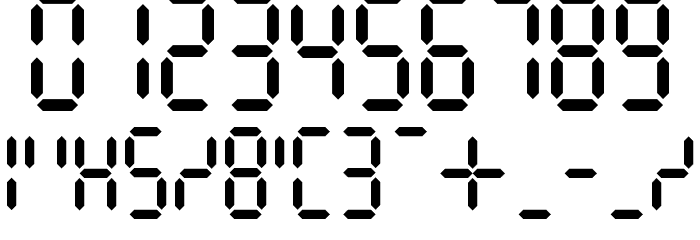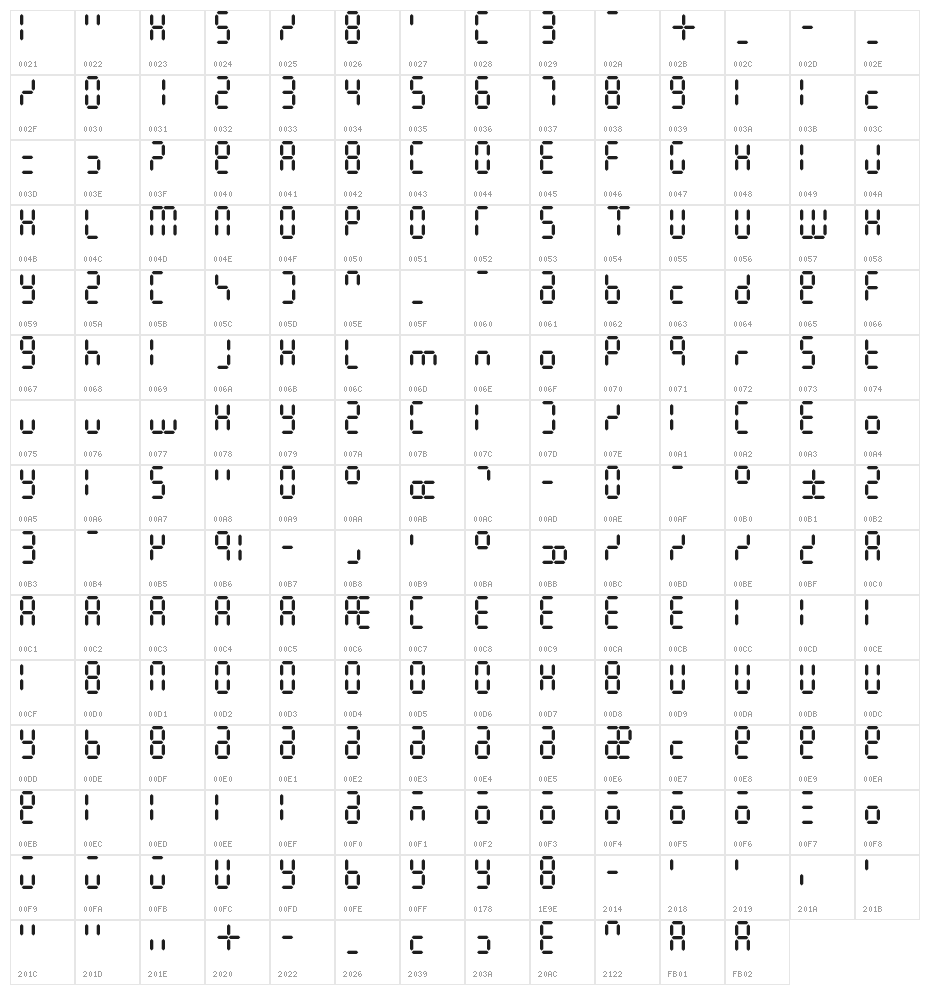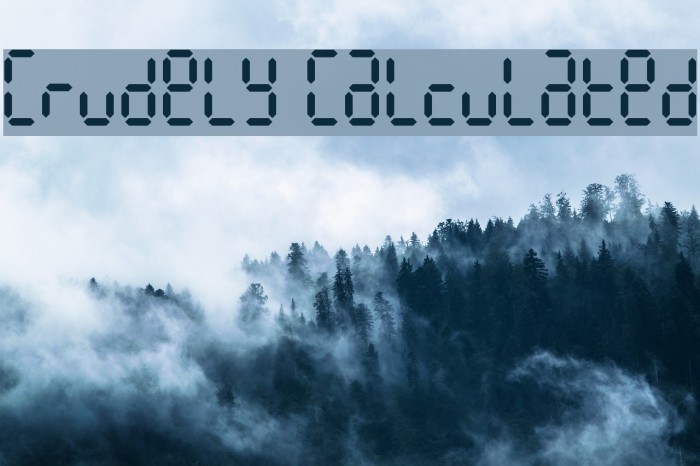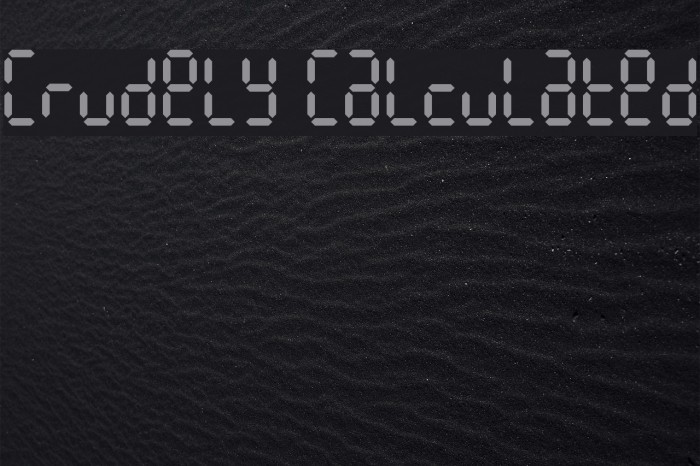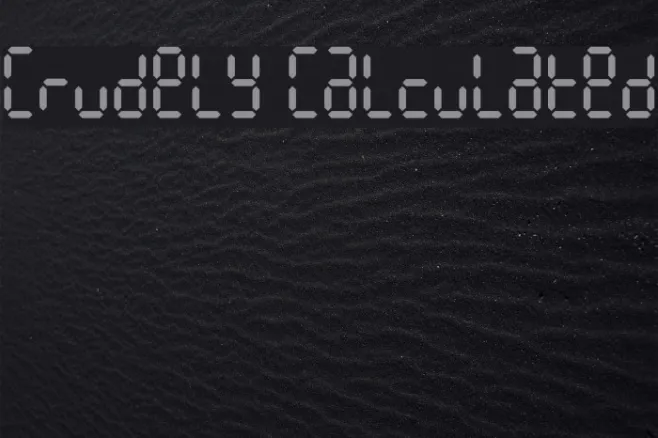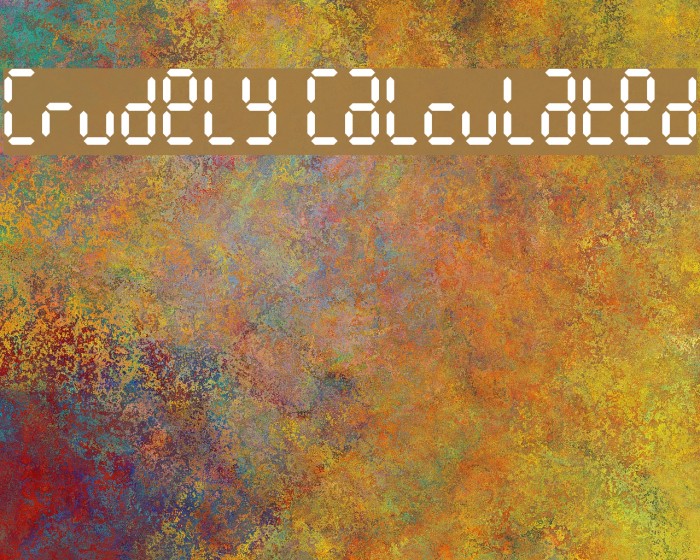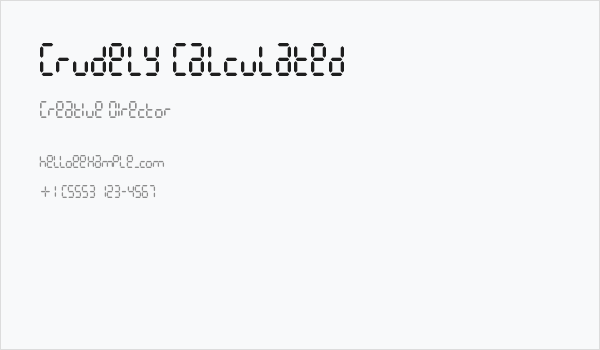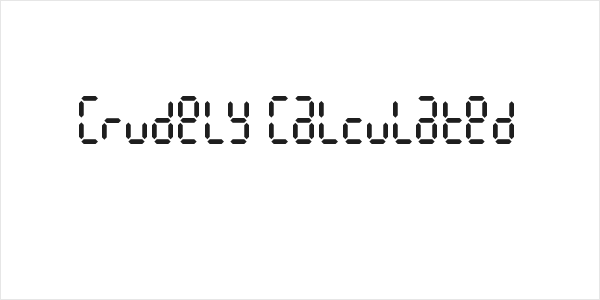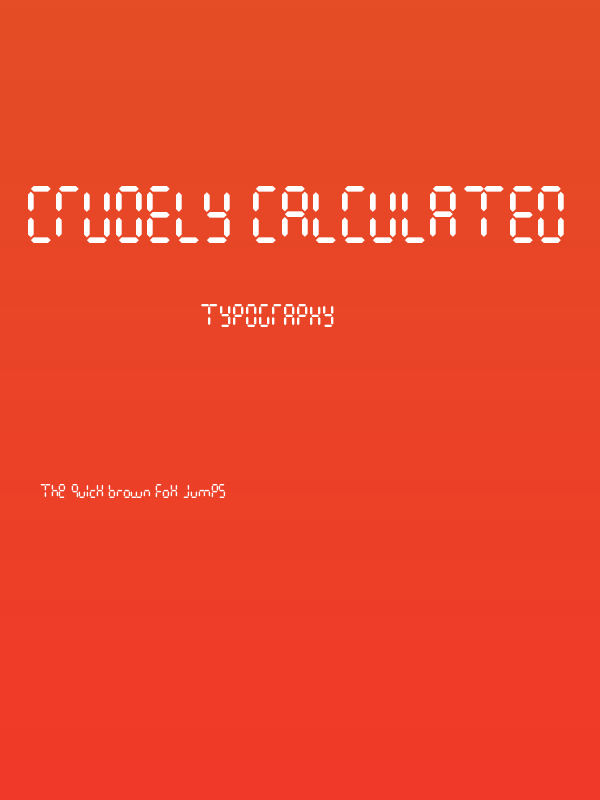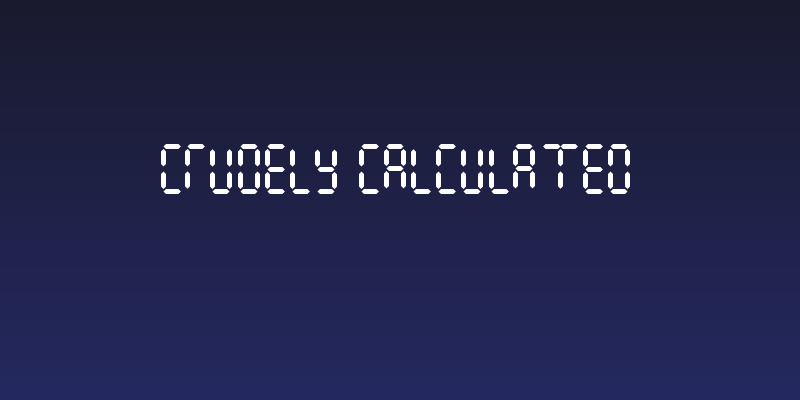
Crudely Calculated Font
This font is reminiscent of digital displays, featuring a segmented style that mimics the appearance of LED or LCD screens. Each character is composed of distinct, angular segments that form a cohesive and recognizable shape. The uppercase and lowercase letters maintain a consistent width, giving the font a monospaced appearance. Numbers and special characters follow the same segmented pattern, ensuring uniformity across all glyphs. The design is bold and geometric, making it highly legible and suitable for digital-themed projects. Its unique style is both modern and retro, evoking a sense of technology and precision.
| Use Case | Headlines, Digital displays, Tech interfaces |
| Proposed Projects | Ideal for digital interfaces, tech-themed posters, retro video game graphics, and electronic device displays. |